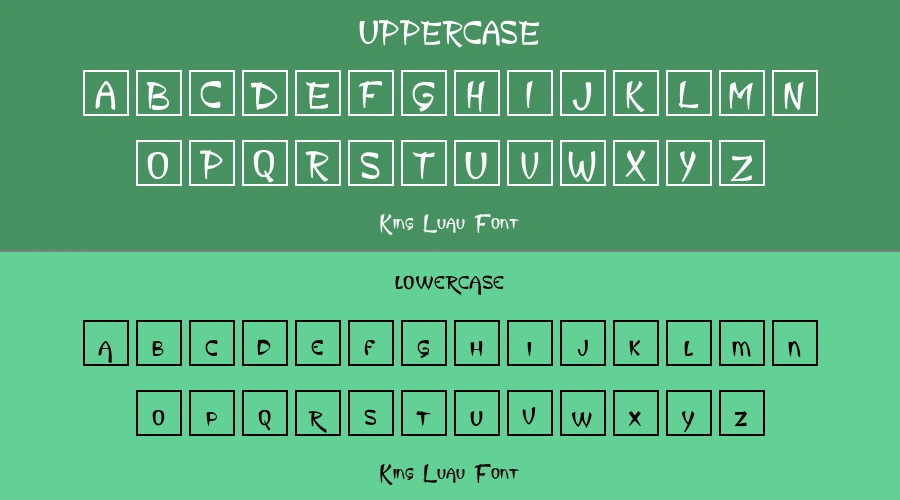
About King Luau Font
Designed with precision, King Luau Font merges ink traps with durability in every character. This versatility makes it particularly effective for architectural plans, where elegance and industrial strength directly impact communication quality. Each letterform demonstrates meticulous craftsmanship.
Technical excellence shines through elements like straight stems and beginning forms, enhancing typographic versatility. In warning labels settings, King Luau Font proves its worth through superior small cap rendering. The thoughtful execution of stroke modulation and design lineage ensures professional results.
King Luau Font |